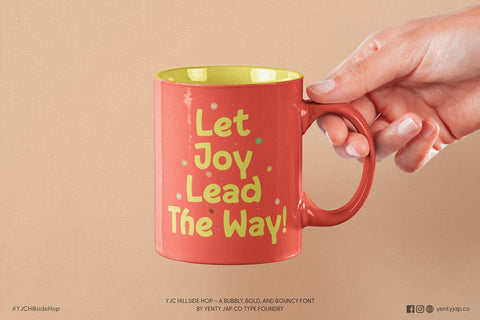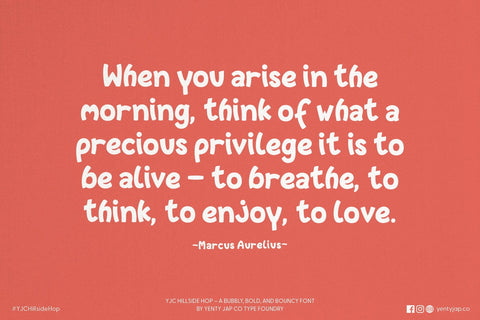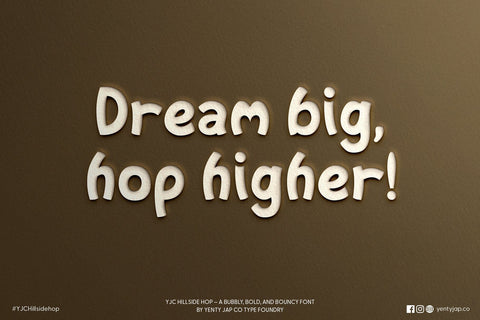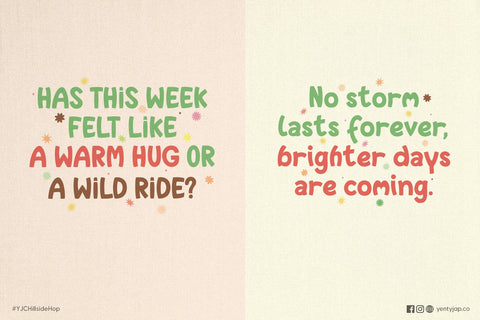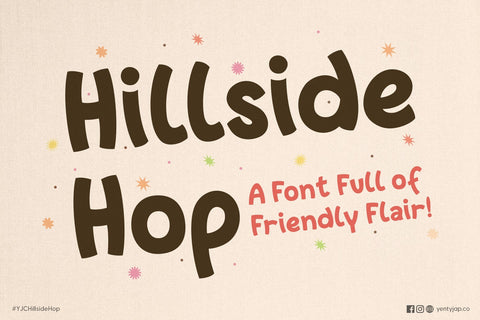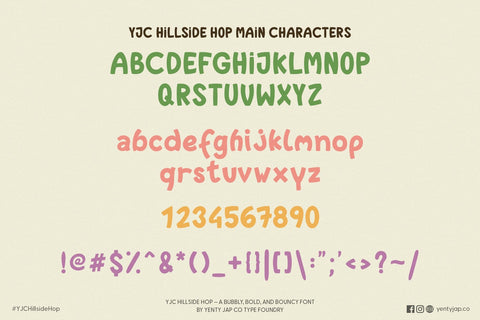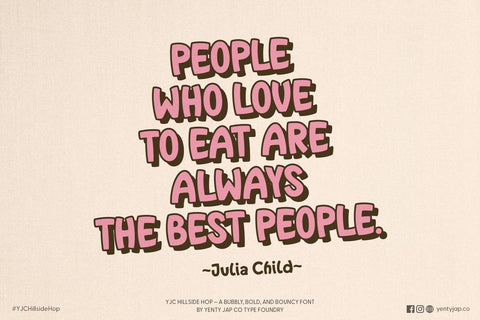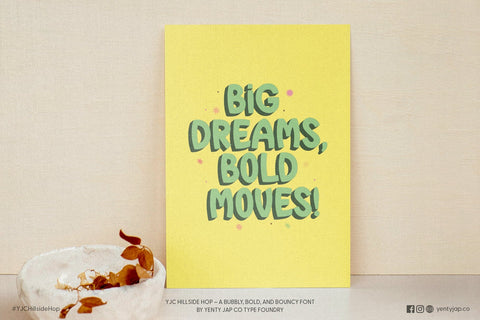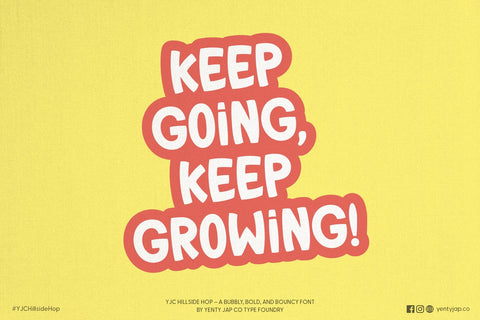
YJC Hillside Hop - A Fun & Bouncy Handwritten Font
Get ready to add a playful twist to your designs with YJC Hillside Hop, a bubbly, bold, and bouncy font that brings instant energy to any project! With its lively curves and organic flow, this font feels like a joyful hop through a field of creativity. Whether you're crafting a fun brand, designing quirky merchandise, or making eye-catching social media posts, YJC Hillside Hop is here to elevate your typography game.
1. A full set of uppercase and lowercase letters with multilingual support
2. Numbers, punctuation, and symbols
Perfect For:
• Food Packaging & Café Menus – Add a fresh, inviting touch to your designs.
• Kids’ Books & Playful Branding – Bring warmth and character to your visuals.
• Greeting Cards & Stickers – Ideal for heartfelt messages and fun designs.
• Social Media Graphics & Quotes – Stand out with bold, eye-catching text.
• T-Shirts, Mugs & Merch – Create memorable products with a friendly vibe.